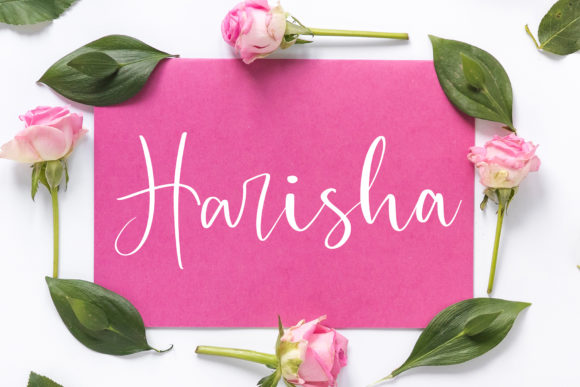
Immerse yourself in the whimsical world of Harisha Font, a captivating script font that will add a touch of magic to your creative endeavors. Its playful and carefree nature will ignite your imagination, inspiring you to craft designs that exude joy and charm.
With its sweeping strokes and delightful curves, Harisha Font dances across the page like a ballerina, bringing life to your words. Its unique personality shines through in every character, adding a touch of whimsy and enchantment to your projects.
Whether you're a seasoned designer or just starting your creative journey, Harisha Font is the perfect companion for a wide range of projects. Its versatility knows no bounds, from creating eye-catching social media posts and logos to designing enchanting invitations and greeting cards.
Step into the realm of Harisha Font and let your creativity soar. Its playful style will transform your designs into works of art, captivating your audience and leaving them spellbound. Unleash the magic of Harisha Font today and embark on a creative adventure that will leave you feeling inspired and invigorated.
- Exquisite script font with a touch of whimsy
- Perfect for creating joyful and charming designs
- Adds a unique and captivating flair to your projects
- Suitable for a wide range of creative endeavors
- Easy to use and versatile, perfect for designers of all levels
Projects:
- Design enchanting invitations and greeting cards
- Create eye-catching social media posts and logos
- Add a touch of magic to your stationary art
- Craft captivating posters and flyers
- Unleash your creativity in branding and web design